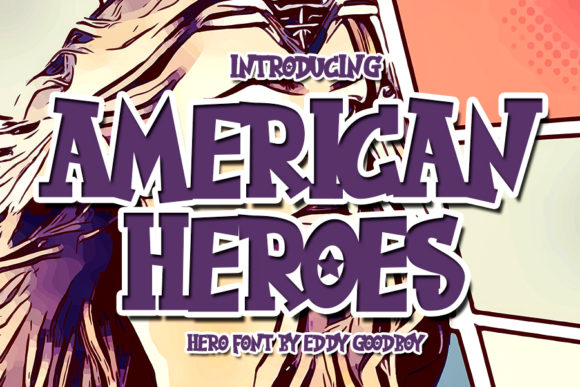
American Heroes Font: The Ultimate Modern Display Font for Your Projects
Are you looking for a font that can add a touch of boldness and style to your projects? Look no further than the American Heroes font. This modern display font is designed to be readable, bold, and stylish, making it the perfect addition to any project. In this article, we’ll take a closer look at the American Heroes font, its features, and how you can use it to elevate your designs.
What is American Heroes Font?
American Heroes is a modern display font that is designed to make a statement. Its bold and stylish design makes it perfect for use in a variety of projects, from posters and flyers to logos and branding materials. The font is highly readable, even at large sizes, making it ideal for use in headlines and titles.
Key Features of American Heroes Font
- Bold and Stylish Design: The American Heroes font has a bold and stylish design that is sure to grab attention.
- Highly Readable: The font is designed to be highly readable, even at large sizes, making it perfect for use in headlines and titles.
- Modern and Fresh: The American Heroes font has a modern and fresh design that is perfect for projects that require a contemporary look and feel.
- Versatile: The font is versatile and can be used in a variety of projects, from posters and flyers to logos and branding materials.
How to Use American Heroes Font in Your Projects
Using the American Heroes font in your projects is easy. Here are a few tips to get you started:
- Use it as a Headline Font: The American Heroes font is perfect for use in headlines and titles. Its bold and stylish design makes it sure to grab attention.
- Pair it with Other Fonts: The American Heroes font can be paired with other fonts to create a unique and stylish look. Try pairing it with a sans-serif font for a modern and fresh look.
- Use it in Branding Materials: The American Heroes font can be used in branding materials, such as logos and business cards, to add a touch of boldness and style.
Benefits of Using American Heroes Font
There are many benefits to using the American Heroes font in your projects. Here are a few:
- Adds a Touch of Boldness and Style: The American Heroes font adds a touch of boldness and style to any project.
- Improves Readability: The font is highly readable, even at large sizes, making it perfect for use in headlines and titles.
- Increases Versatility: The American Heroes font can be used in a variety of projects, from posters and flyers to logos and branding materials.
Who Can Use American Heroes Font?
The American Heroes font can be used by anyone who wants to add a touch of boldness and style to their projects. Here are a few examples of who can use the font:
- Graphic Designers: Graphic designers can use the American Heroes font in their designs to add a touch of boldness and style.
- Marketeers: Marketeers can use the font in their marketing materials, such as posters and flyers, to grab attention.
- Branding Experts: Branding experts can use the American Heroes font in branding materials, such as logos and business cards, to add a touch of boldness and style.
In conclusion, the American Heroes font is a modern display font that is readable, bold, and stylish. Its bold and stylish design makes it perfect for use in a variety of projects, from posters and flyers to logos and branding materials. With its highly readable design and versatile nature, the American Heroes font is sure to be a great addition to any project.
- What is the American Heroes font?: The American Heroes font is a modern display font that is designed to be readable, bold, and stylish.